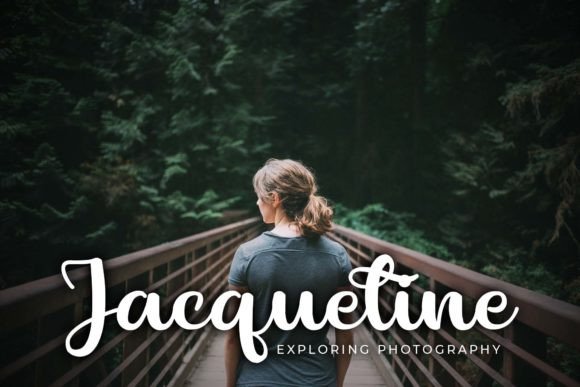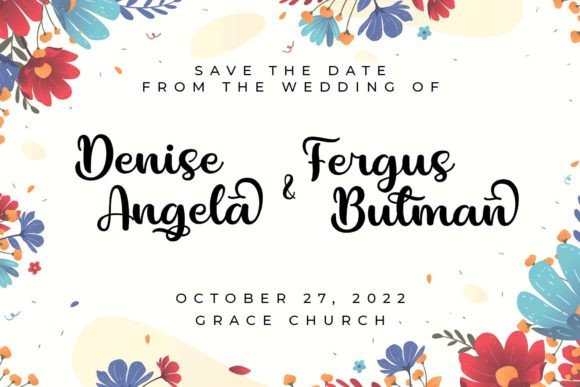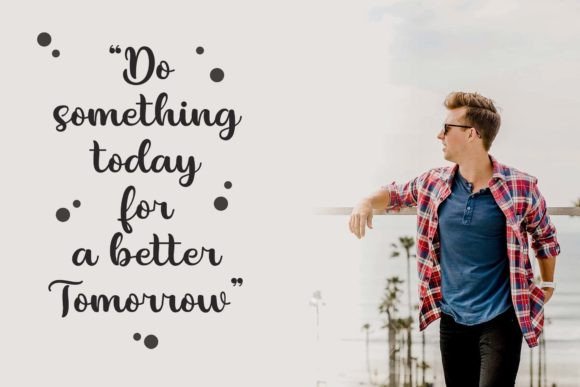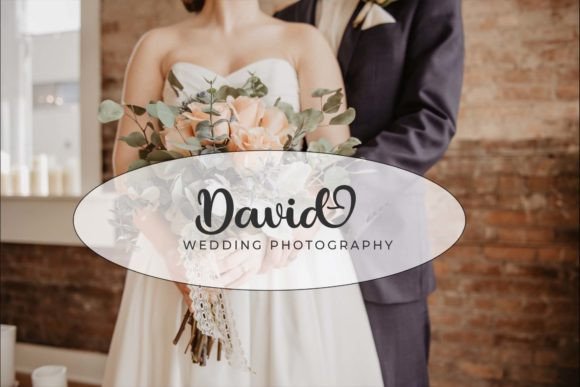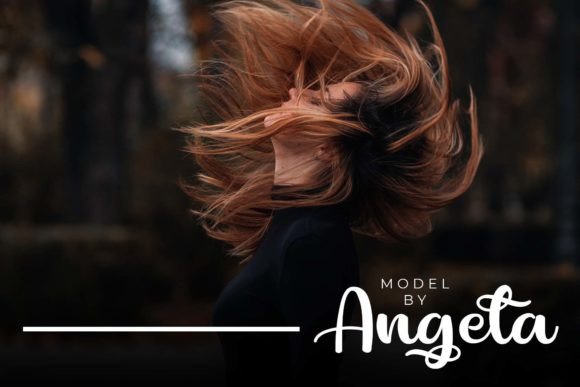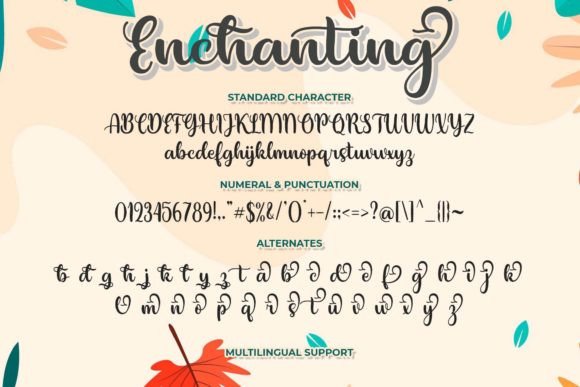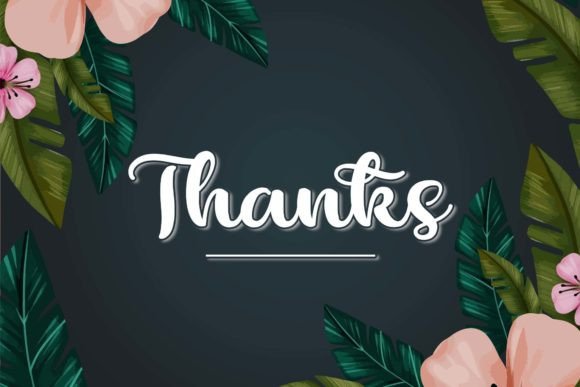
Enchanting Font
About Enchanting Font
The Enchanting font is a stunning work of art. This beautiful handwritten typeface is great for adding a perfect touch to your designs. This stunning font looks great on branding materials, signs & invitations, business cards, and more! This font is PUA encoded, which means you can access all of the glyphs and swashes with ease!